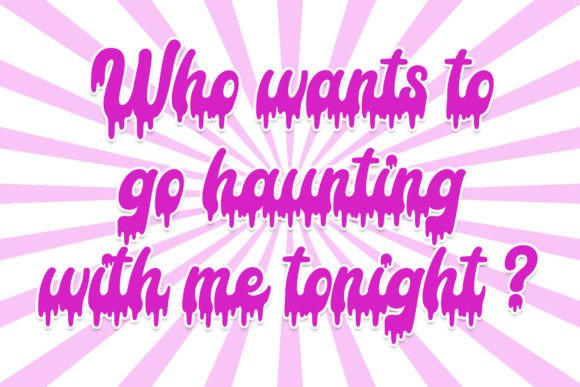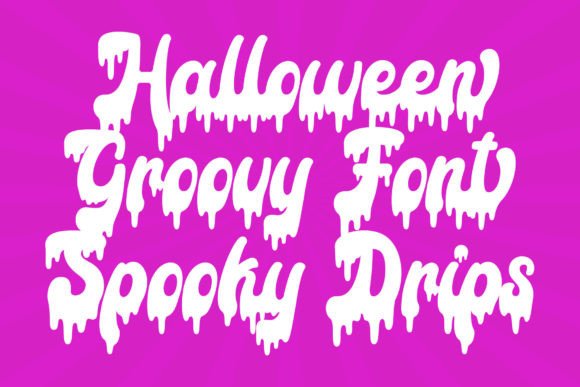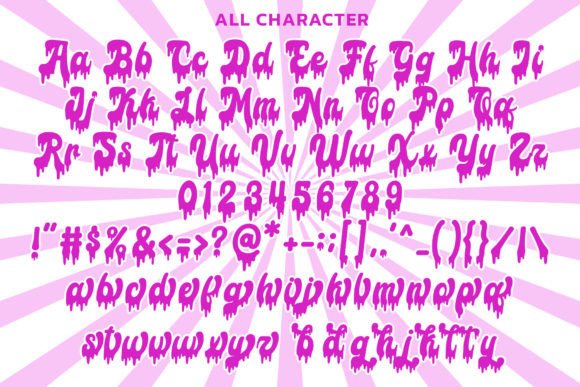
Introduction to Slime Font
Have you ever stared at a blank canvas, wondering how to bring your creative project to life? For designers, it’s that moment when inspiration strikes, and the perfect font can make all the difference. That’s where the Slime Font comes in – a cool, vintage-style script Bold font that’s sure to add a touch of retro charm to any design idea.
Whether you’re working on a logo, branding, invitation, or social media post, the Slime Font is a versatile design resource that’s sure to impress. With its high-quality, PUA-encoded glyphs and swashes, you can easily access all the features you need to create a unique and eye-catching design. And the best part? It’s available for free download, making it an accessible and valuable resource for designers of all levels.
Key Features of Slime Font
- Unique, slime-inspired design with a transparent background, perfect for adding a fun and quirky touch to your designs.
- Includes a wide range of characters, including uppercase and lowercase letters, numbers, and special symbols, making it a versatile design resource.
- Resolution-independent design ensures crisp and clear text at any size, from small captions to large headlines.
Honest Review: Slime Font
As a designer, I’m always on the lookout for high-quality design resources to elevate my creative projects. Recently, I came across the Slime Font, and I’m excited to share my thoughts on it.
- ✨ The Slime Font is incredibly versatile and can be used for a wide range of projects, from digital art to print designs.
- ✨ The transparent background is a nice touch, allowing for seamless integration with other design elements.
- ⚠️ The font is only available in a few weights, which may limit its use in certain design scenarios.
- ⚠️ Some users may find the font’s style to be a bit too playful, making it less suitable for more formal projects.
Overall, I’m impressed with the Slime Font. While it may have some limitations, its versatility and high quality make it a valuable addition to any designer’s toolkit. If you’re looking for a fun and creative font to add some personality to your designs, the Slime Font is definitely worth checking out.
The Slime Font is a high-quality design resource perfect for creative projects. This free download offers a unique and eye-catching aesthetic that can elevate any design. With its transparent background, you can easily integrate it into various design tools.
Tips for Getting the Most Out of Slime Font
To get the most out of the Slime Font, use it in creative ways such as:
- Creating eye-catching titles and headings.
- Designing unique social media graphics.
- Developing engaging presentations and reports.
Creative Projects with Slime Font
Project 1: Slime Font Social Media Graphics
Project 2: Slime Font Digital Planner Template
Slime Font
Conclusion: Unlocking the Potential of Slime Font